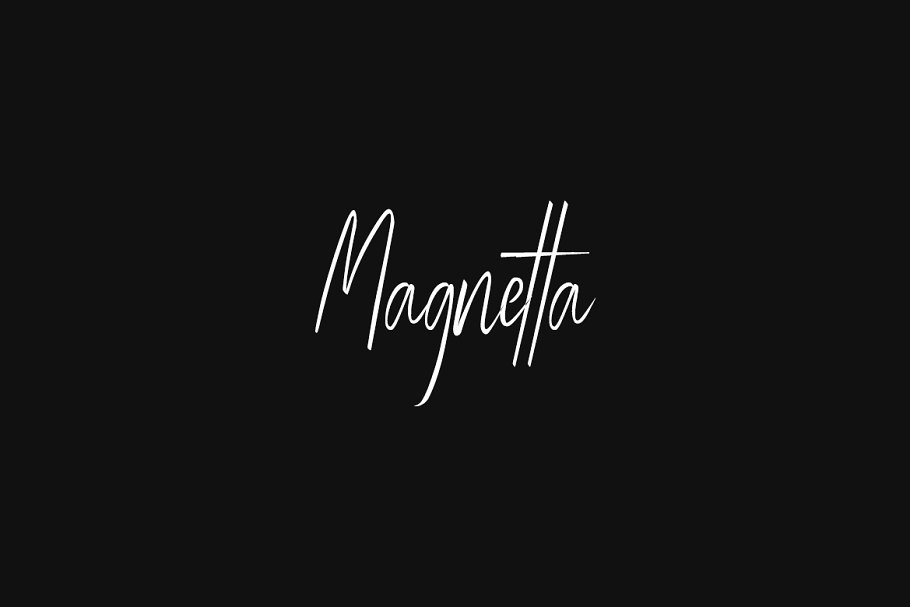
Magnetta Font
Magnetta Font is perfect for vibrant fashion brands, bold cosmetics campaigns, energetic fitness studios, dynamic creative agencies, colorful event planning, and striking entertainment venues. Its magnetic character makes it ideal for youth-oriented brands, trendy nightlife establishments, vibrant lifestyle magazines, bold music festivals, dynamic social media campaigns, and any project requiring magnetic attraction with electric energy and captivating visual impact.
This font is exciting because it embodies the irresistible pull of magnetic attraction while delivering exceptional functionality for brands seeking to capture attention and create instant visual impact. The dynamically charged letterforms radiate energy and confidence, creating typography that draws audiences in like a powerful magnet, making it perfect for organizations seeking to stand out in crowded markets and create memorable brand experiences.
The Magnetta Font family typically includes Light, Regular, Medium, and Bold weights with dynamic alternates, energy-inspired ligatures, and magnetic decorative elements that enhance its attractive personality. This comprehensive collection provides creative professionals with powerful tools for creating captivating brand systems that maintain magnetic appeal while offering flexibility for various dynamic applications requiring instant attraction and energetic market positioning.